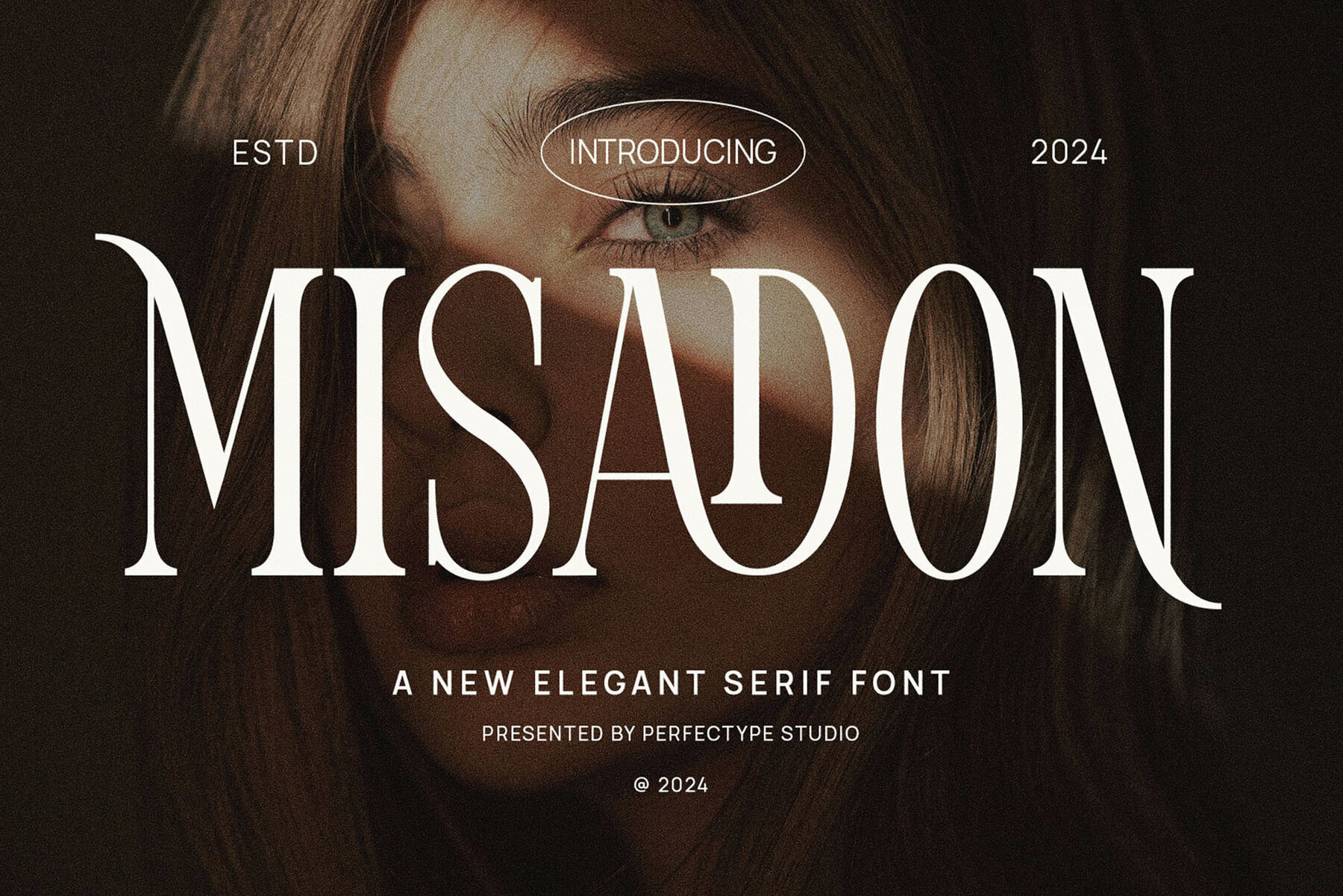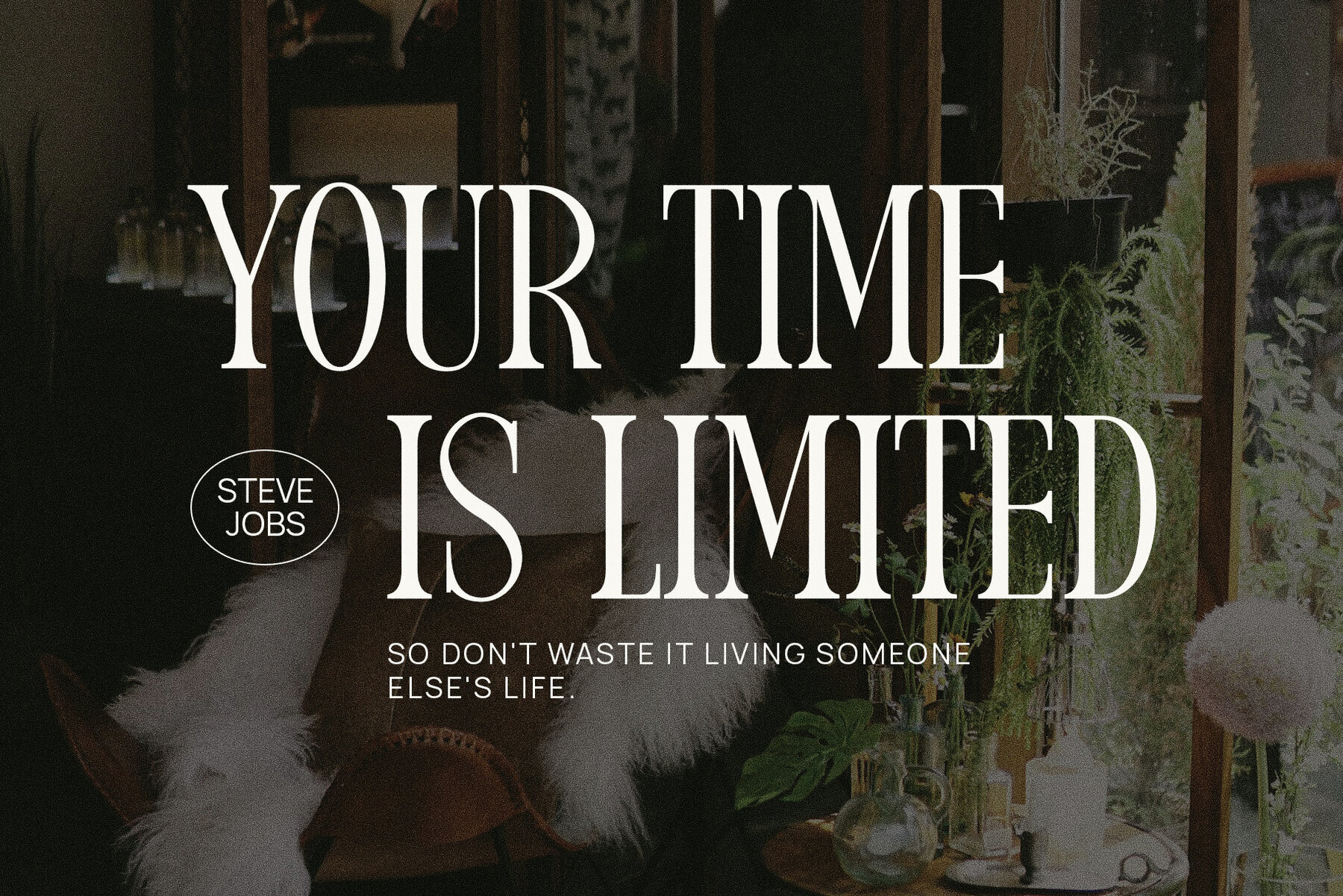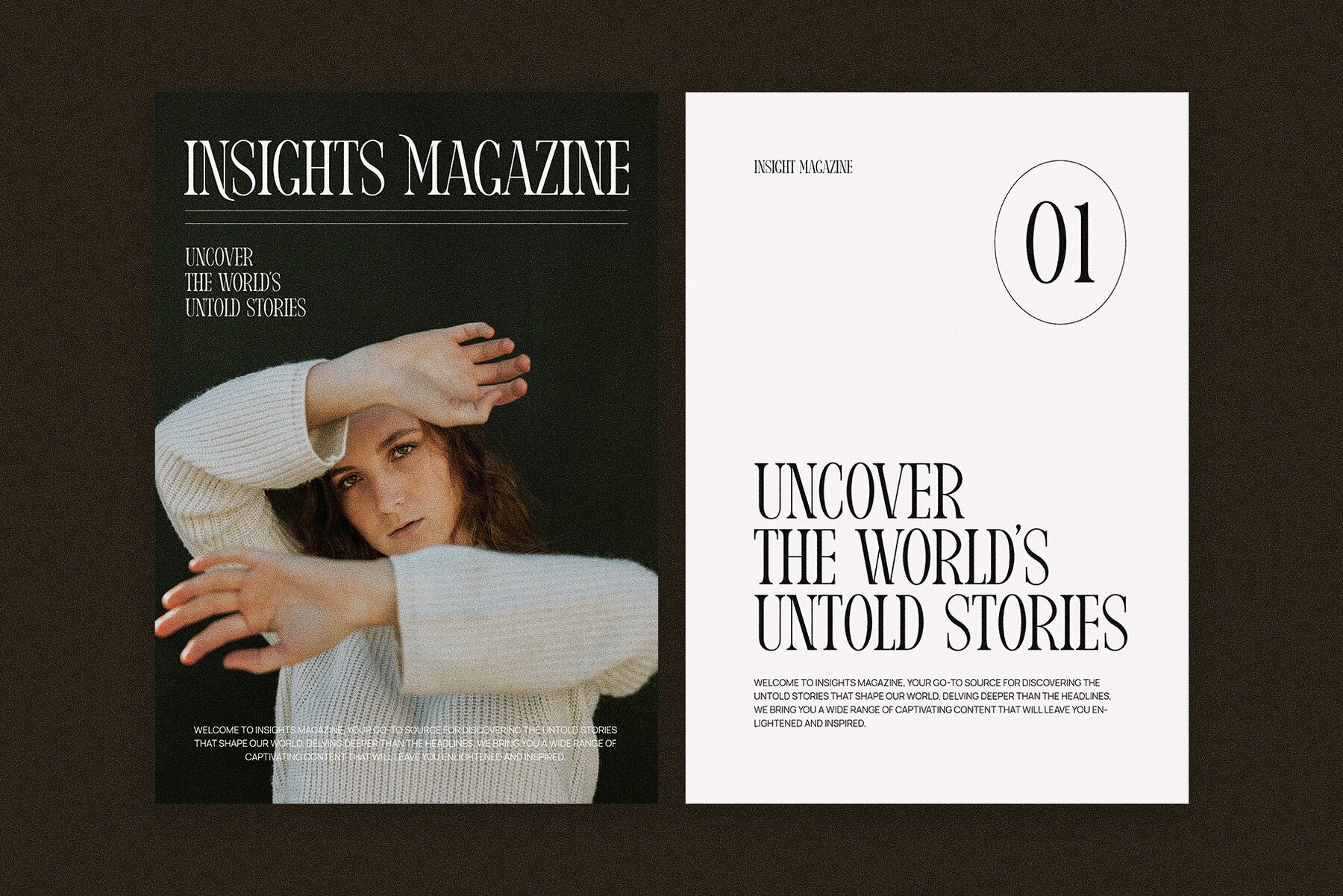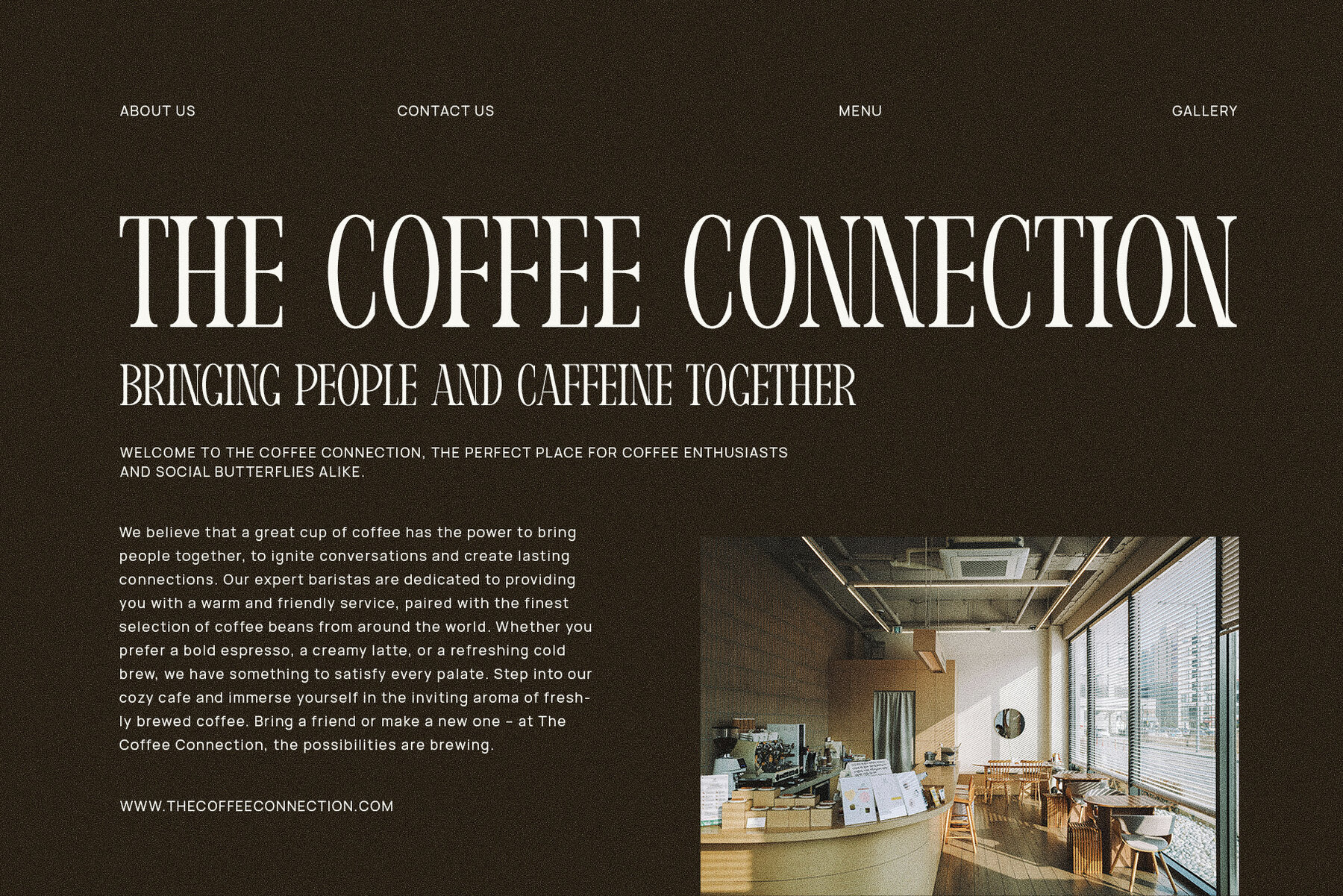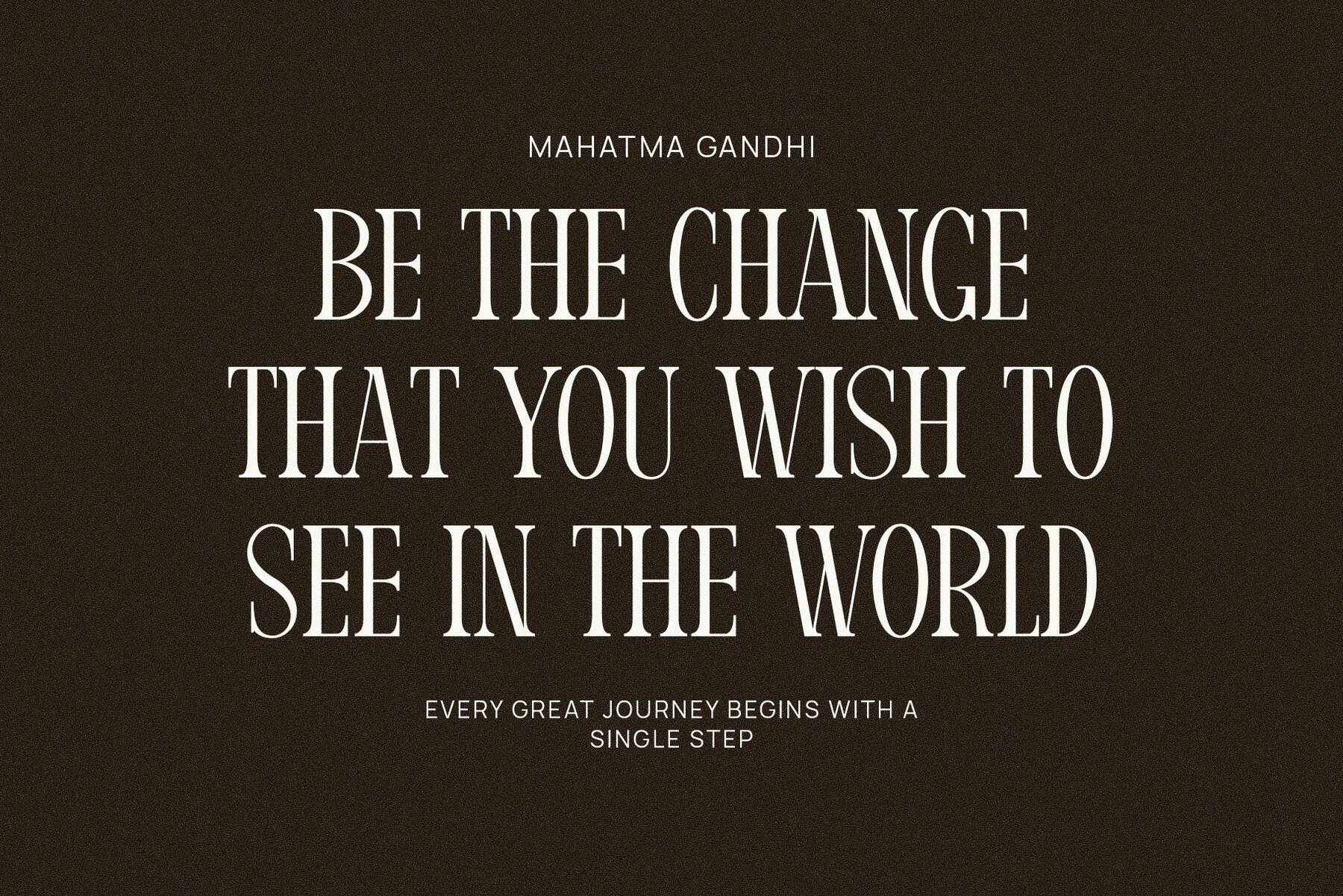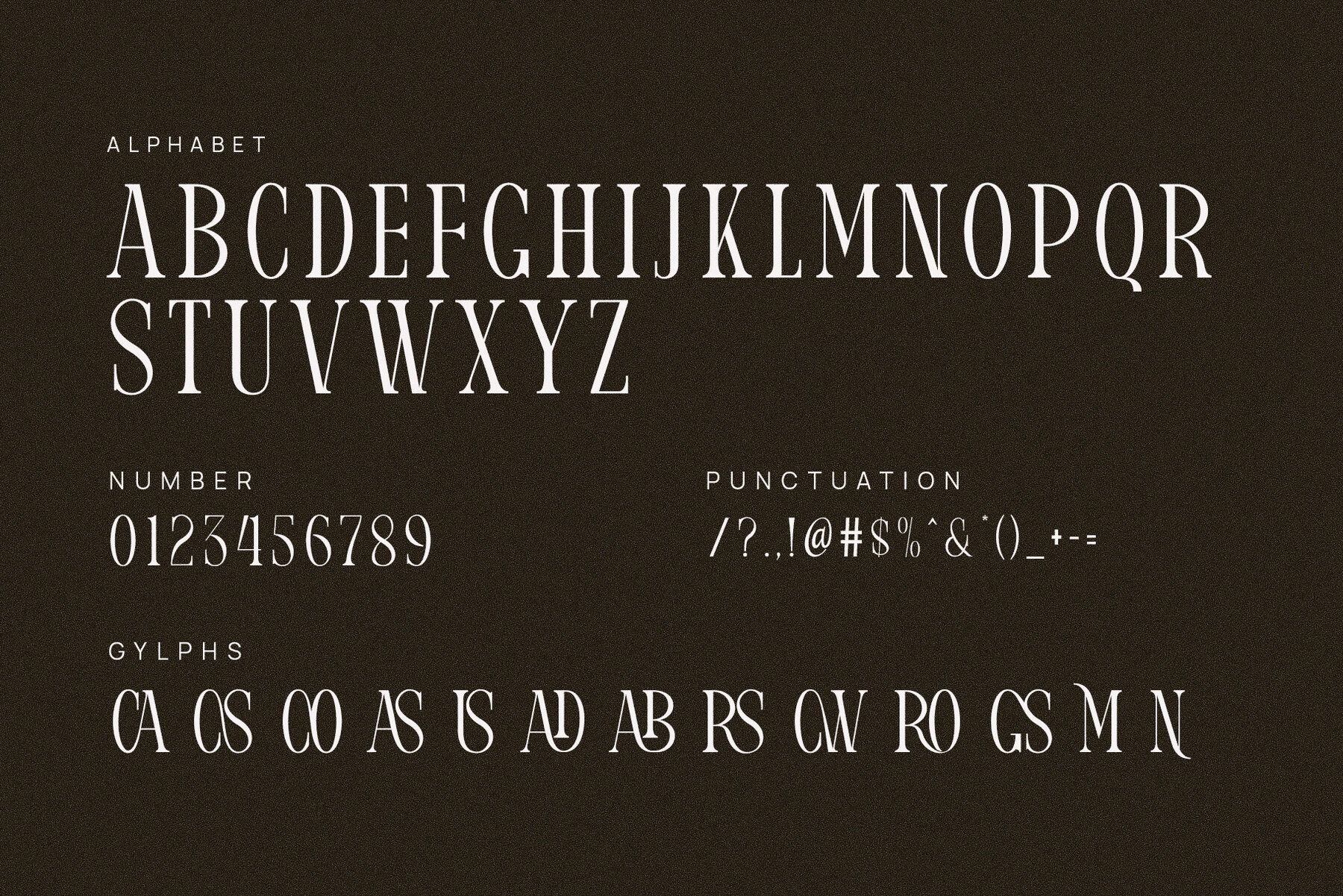
Misadon Font
Misadon
Misadon Elegant Ligature Serif Font seamlessly merges classic sophistication with a contemporary flair, offering a unique blend of heritage and modernity. Inspired by timeless serif typography, it introduces artistic ligatures that provide a fresh twist to traditional design. Each character is meticulously crafted to convey grace and precision, ensuring a luxurious appearance in any project. The ligatures of Misadon play a crucial role, connecting letters with delicate yet bold transitions. This creates a fluid and cohesive text experience, enhancing readability and adding a handcrafted artistic touch. Perfect for high-end branding and editorial projects, the smooth ligatures infuse designs with a refined sophistication.
This font's versatility makes it perfect for a variety of creative applications, including premium logo design, upscale product packaging, magazine layouts, and advertising campaigns. Its strong yet elegant serifs offer a balanced visual weight, ensuring both impact and style. Whether you're designing a luxury brand identity or crafting captivating print materials, Misadon provides an air of sophistication and modern elegance. It enables you to create stunning, unforgettable designs that leave a lasting impression, combining traditional elegance with contemporary nuances.